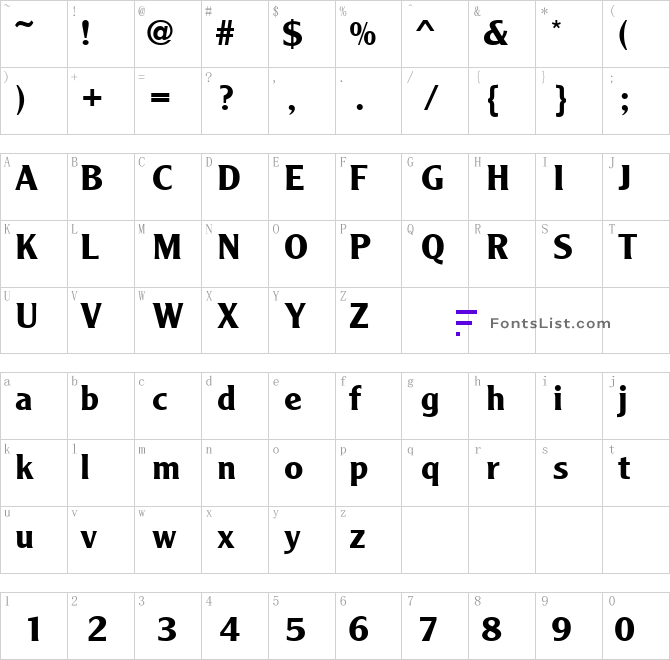
- Font Name:AgendaURWTMed
- Full Name:AgendaURWTMed
AgendaURWTMed.ttf is a very beautiful artistic font, AgendaURWTMed.ttf is widely used in the design and printing of various books and pictures,AgendaURWTMed.ttf has a strong visual impact,AgendaURWTMed.ttf is a commonly used font in newspapers, magazines and books, and is used in posters, e-commerce Poster design, store design, logo design, font design and other fields.AgendaURWTMed.